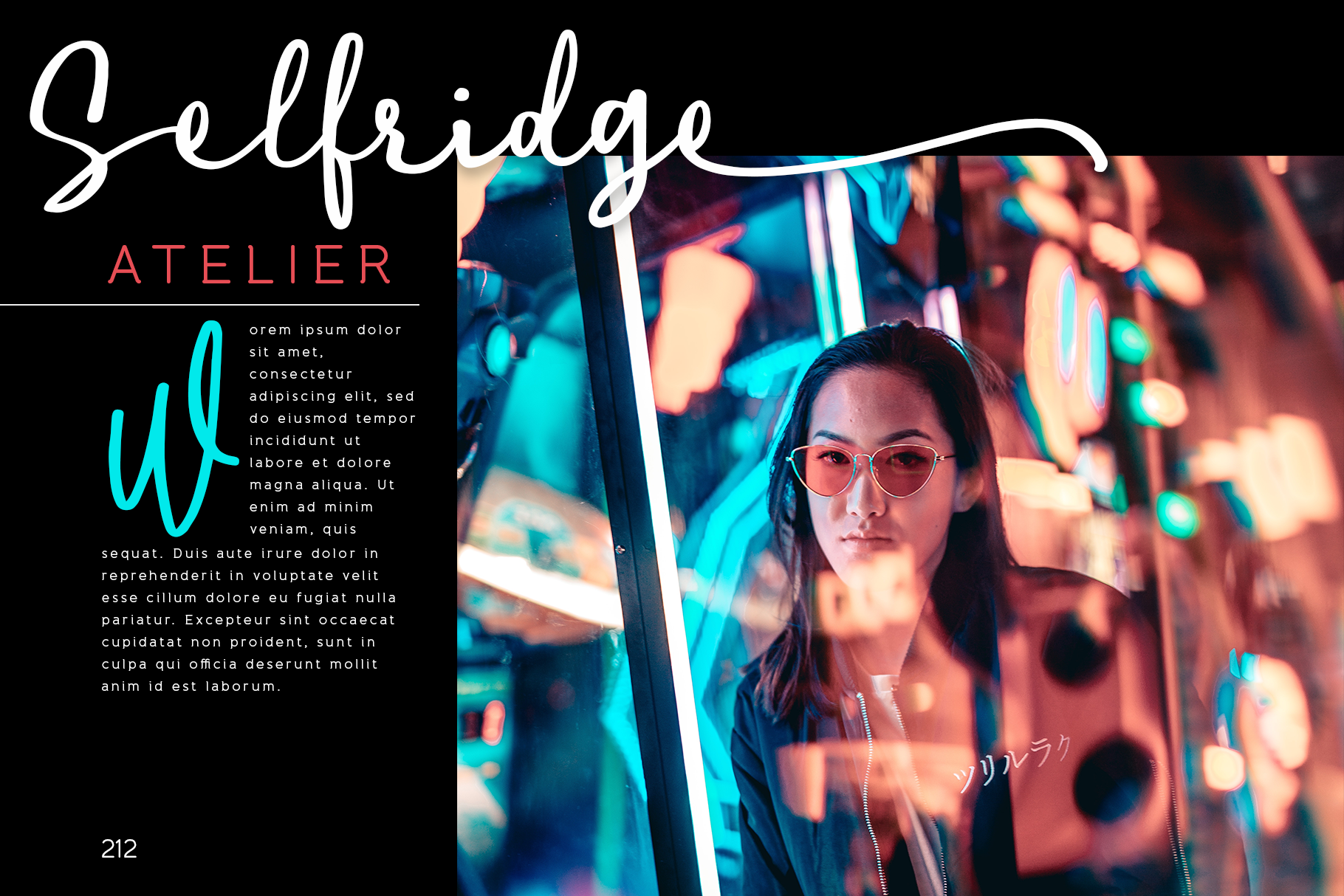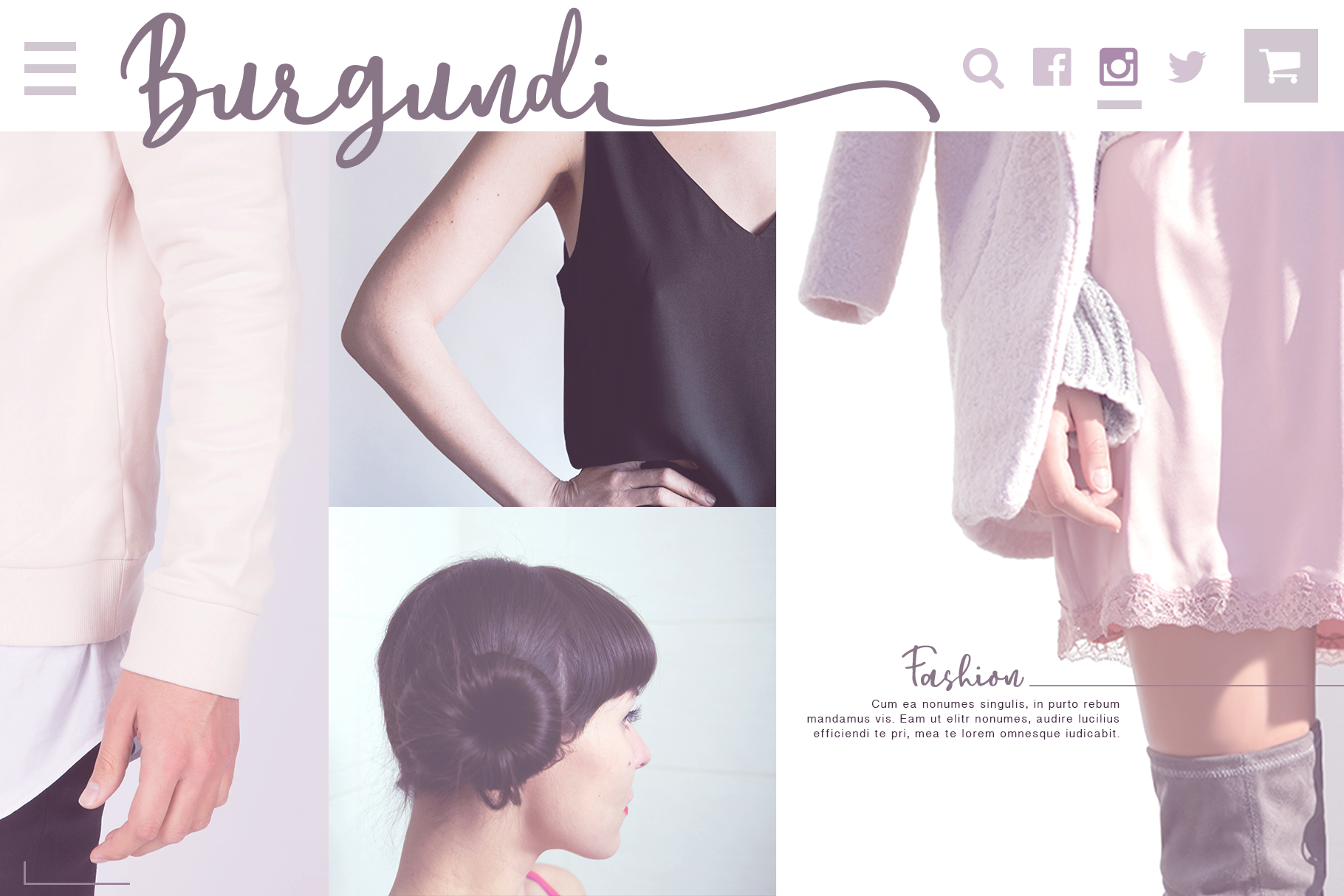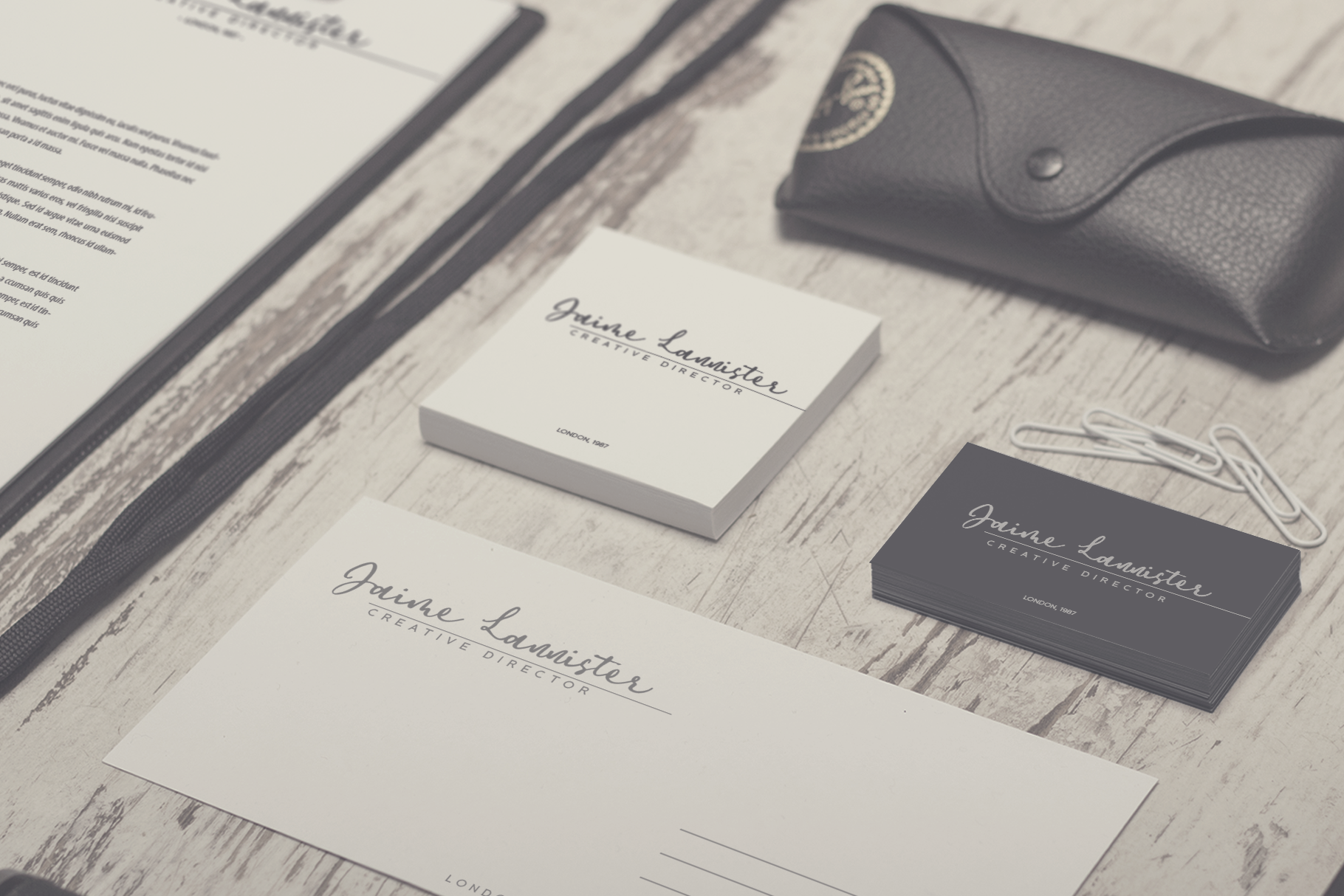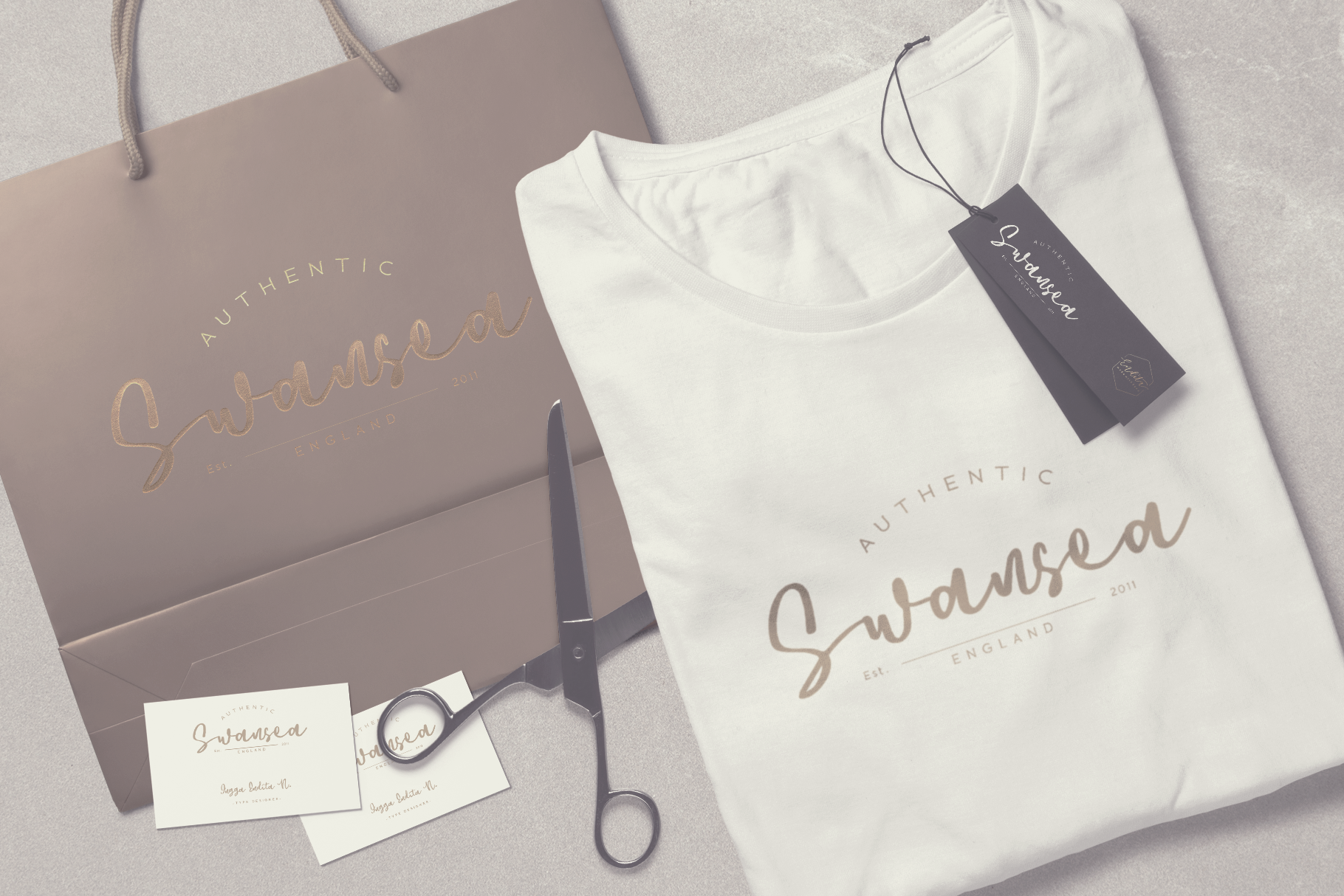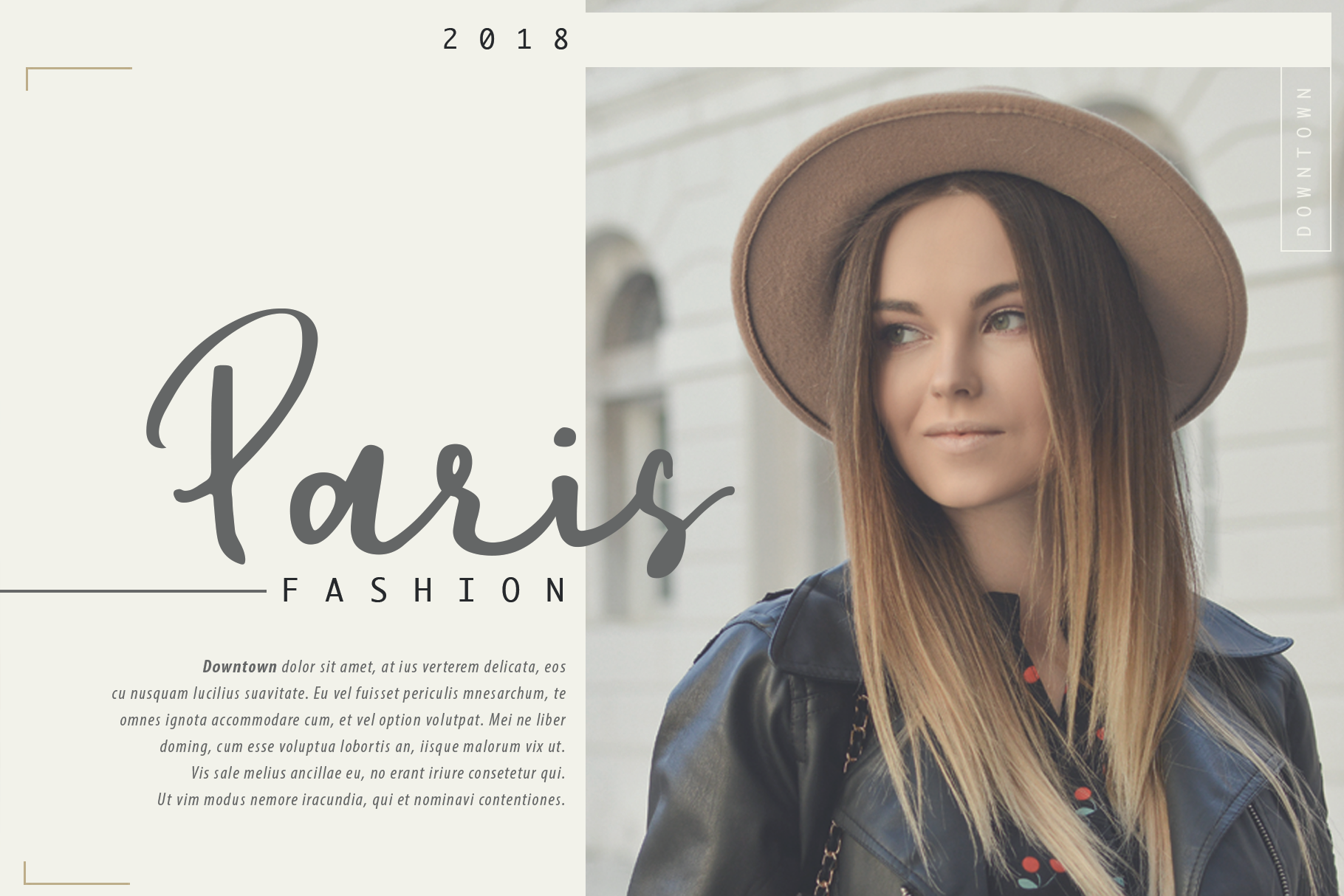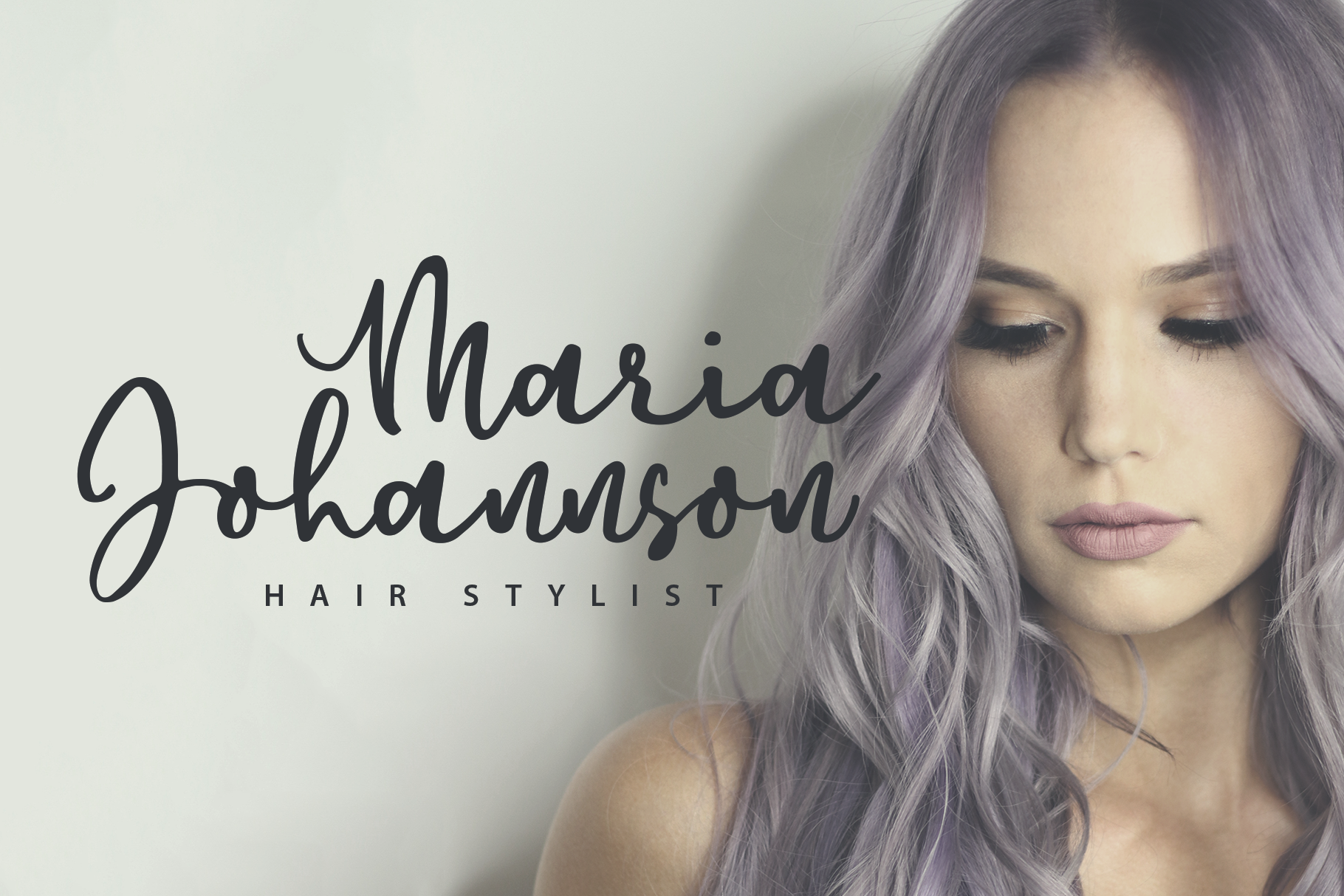
Introducing Downtown Font: A Stunning Hand-Lettered Calligraphy for Fashion and Editorial Projects
Are you a designer or crafter looking for a unique and visually appealing font to elevate your fashion designs and editorial projects? Look no further than Downtown Font, a stunning naturally made font crafted from hand-lettered calligraphy. This wonderful and cute font is sure to capture the attention of your audience and leave a lasting impression.
The Beauty of Hand-Lettered Calligraphy
Downtown Font is a true masterpiece of hand-lettered calligraphy. Each letter has been carefully crafted by hand, giving the font a personal and organic feel that is hard to replicate with digital fonts. The result is a font that exudes elegance, sophistication, and a touch of whimsy. Whether you’re working on a fashion design, editorial project, or simply looking for a unique font to add to your collection, Downtown Font is sure to impress.
Perfect for Fashion Designs and Editorial Projects
Downtown Font is particularly well-suited for fashion designs and editorial projects. Its elegant and refined appearance makes it perfect for use in:
- Fashion branding and logos
- Editorial spreads and articles
- Product packaging and labels
- Invitations and event materials
Whether you’re creating a stylish fashion campaign or a thought-provoking editorial piece, Downtown Font is the perfect choice to add a touch of sophistication and glamour.
Key Features of Downtown Font
So, what makes Downtown Font so special? Here are just a few of its key features:
- Hand-lettered calligraphy for a unique and personal touch
- Elegant and refined appearance perfect for fashion and editorial projects
- Easy to read and use in a variety of contexts
Tips for Using Downtown Font
To get the most out of Downtown Font, here are a few tips to keep in mind:
- Use it sparingly: Downtown Font is a statement font, so use it sparingly to add emphasis and impact to your designs.
- Pair it with contrasting fonts: Downtown Font pairs beautifully with clean, sans-serif fonts. Try pairing it with a font like Arial or Helvetica for a striking contrast.
- Experiment with colors: Downtown Font looks stunning in a range of colors, from bold and bright to soft and pastel. Experiment with different colors to find the perfect look for your design.
In conclusion, Downtown Font is a stunning and versatile font that is perfect for fashion designs and editorial projects. Its hand-lettered calligraphy and elegant appearance make it a standout choice for designers and crafters looking to add a touch of sophistication and glamour to their work. With its ease of use, compatibility with a range of design software, and instant download, Downtown Font is a must-have font for any serious designer or crafter.